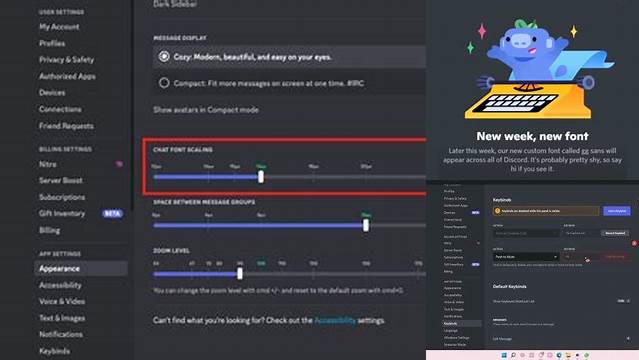
Mastering Discord Font Changes: A Complete Guide
Hey everyone! Ever feel like your Discord messages are just a little too plain? You're not alone, guys. We all want our words to pop, to reflect our personality, and sometimes, that means stepping away from the standard text. So, how do you actually change text fonts in Discord? It's not as straightforward as clicking a button, but don't sweat it! This guide is going to break down all the cool ways you can jazz up your Discord messages, making them stand out in any server. We'll cover everything from simple formatting tricks to using external tools, ensuring your messages are as unique as you are. Get ready to transform your plain text into something truly special!
The Magic of Discord's Built-in Formatting
So, let's dive into the easiest way to add some flair to your Discord text: the built-in formatting. Discord uses Markdown, a super simple markup language that lets you do things like bold and italicize your text. But the real magic for changing the look of your font isn't directly changing the font face, but rather the style. Think of it like this: you can't choose Times New Roman or Arial directly in Discord, but you can make your text look bold, italic, or even code-formatted. The code-formatted style, in particular, often uses a monospace font, which is a different look altogether! To use these, you just add specific characters before and after your text. For bold, you use double asterisks like this: **bold text**. For italics, it's a single asterisk: *italic text*. Want to combine them? Easy peasy: ***bold and italic***. And for that code look, just wrap your text in backticks: `code style`. These might seem basic, but mastering them is the first step to making your Discord messages way more engaging. They're perfect for highlighting important points, adding emphasis, or just making your chat a bit more visually interesting. Plus, they work everywhere in Discord – chat, server descriptions, even your profile bio! So, next time you're typing, give these a whirl. You'll be surprised how much a little formatting can change the feel of your messages.
Achieving Bold Text in Discord Messages
Alright, let's talk about making your words hit harder by using bold text in Discord. This is one of the most fundamental formatting tricks, and it's incredibly useful for drawing attention to key phrases, important announcements, or even just making a statement. You know how sometimes you want everyone to really see something? That's when bold comes to the rescue. In Discord, you achieve bold text using the Markdown syntax, which is super straightforward. All you need to do is surround the text you want to make bold with double asterisks (**). So, if you want to type "This is important!" and have it appear bold, you would actually type **This is important!**. When you hit enter, Discord automatically interprets those double asterisks and renders your message as This is important!. It’s that simple! This is perfect for game updates, rules in a server, or just emphasizing a funny part of your story. It creates a visual hierarchy in your chat, making it easier for people to skim and find the information they need. Don't underestimate the power of bold; it's a subtle but effective way to control how your message is perceived. Guys, remember this one; it's a game-changer for clarity and impact in your conversations. Try it out in your next message – you’ll see the difference immediately!
Emphasizing with Italic Text in Discord
Moving on, let's get into the smoother side of text formatting: italic text. While bold shouts, italics whisper, offering a gentler way to add emphasis or a different tone to your messages. You might use italics for a softer emphasis, to denote a thought, a quote, or even just to add a touch of stylistic elegance to your chat. Just like with bold text, Discord uses Markdown for italics, and it's just as easy to implement. You only need to surround the text you want to italicize with a single asterisk (*). So, if you wanted to say "Maybe we should try that later," in italics, you'd type *Maybe we should try that later*. Discord then transforms it into Maybe we should try that later. It's a subtle difference, but it can significantly change the feel of your message. Think about using italics for inner monologues in a roleplay scenario, quoting someone without making it a formal block quote, or just to make a word or phrase stand out slightly from the rest of your text. It adds a layer of nuance that plain text just can't achieve. Mastering both bold and italic formatting gives you a solid foundation for making your Discord communication more dynamic and expressive. Guys, don't forget to experiment with combining italics and bold for even more dynamic effects!
Creating Strikethrough Text in Discord
Want to show that something has been edited or is no longer relevant? Discord's got your back with strikethrough text! This formatting is super handy for indicating that a piece of information is outdated, has been changed, or perhaps you're jokingly retracting a statement. It adds a visual cue that the text is